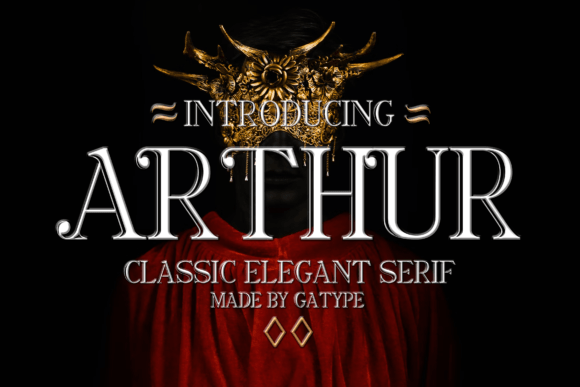
Unleashing the Power of Contrast: Arthur Font
Have you ever found yourself stuck in a design rut, scrolling through countless font options, desperate to find that one perfect match for your project? You know the feeling – it’s like searching for a needle in a haystack, with each font blending together in a sea of sameness. But what if I told you that there’s a font out there that’s guaranteed to stand out from the crowd, to make a statement, and to elevate your design to the next level?
Enter Arthur Font, a modern serif font that’s as stylish as it is elegant. With its long, classic serifs, Arthur Font creates a high-contrast typeface that’s perfect for making a bold impression. Whether you’re designing a logo, a magazine, or a website, Arthur Font is the perfect choice for adding a touch of sophistication and class to your work.
Arthur Font Key Features
- Unique Characteristics: Arthur Font features a unique blend of modern and classic elements, with subtle flair and sophistication.
- Font Style: Available in Regular and Bold styles, providing flexibility for various design applications.
Arthur Font Review
I recently had the chance to work with Arthur Font, and I must say it was a mixed bag. Here’s my honest review.
The font’s clean and modern design makes it perfect for digital applications. It’s easy on the eyes and works well in small sizes.
Arthur Font has a wide range of weights and styles, making it highly customizable for various design projects.
It’s highly legible, even in italic and bold styles, which is a big plus for any font.
The font may feel a bit generic, lacking the unique personality that some designers look for in a font.
Some of the lighter weights may be too light, making them difficult to read in certain contexts.
There’s no clear connection to a specific cultural or historical context, which might limit its use in certain design projects.
Arthur Font is a solid, dependable choice for digital design projects. While it may not stand out in terms of uniqueness, it’s a reliable workhorse that gets the job done. I’d recommend it for general use, but if you’re looking for something with a bit more personality, you might want to consider other options.
Arthur Font is commonly used for:
- Creating vintage or distressed effects
- Designing invitations and event graphics
- Adding a touch of elegance to presentations and reports
- Creating unique and eye-catching social media posts
Getting the Most Out of Arthur Font
To get the most out of Arthur Font, experiment with different font sizes, styles, and colors. Combine the font with other design elements to create a unique visual effect. Use Arthur Font to add a touch of elegance and sophistication to your designs.
Alternatives to Arthur Font for Designers
Playfair Display is an elegant and luxurious serif font ideal for use in high-end branding, luxury goods, and fine art. It features intricate details and classic letterforms, making it perfect for creating a sophisticated and refined atmosphere.
Compared to Arthur Font, Playfair Display is more formal and luxurious, making it suitable for high-end applications. While Arthur Font is a versatile font, Playfair Display is more specialized and better suited for specific uses.
Lato is a clean and modern sans-serif font that is highly legible and versatile. It is suitable for use in digital products, corporate branding, and advertising. Lato’s simplicity and elegance make it an excellent choice for a wide range of applications.
Lato is more modern and minimalist compared to Arthur Font, which is more classic and traditional. Lato is better suited for digital applications and modern branding, while Arthur Font is more versatile and can be used in a variety of contexts.